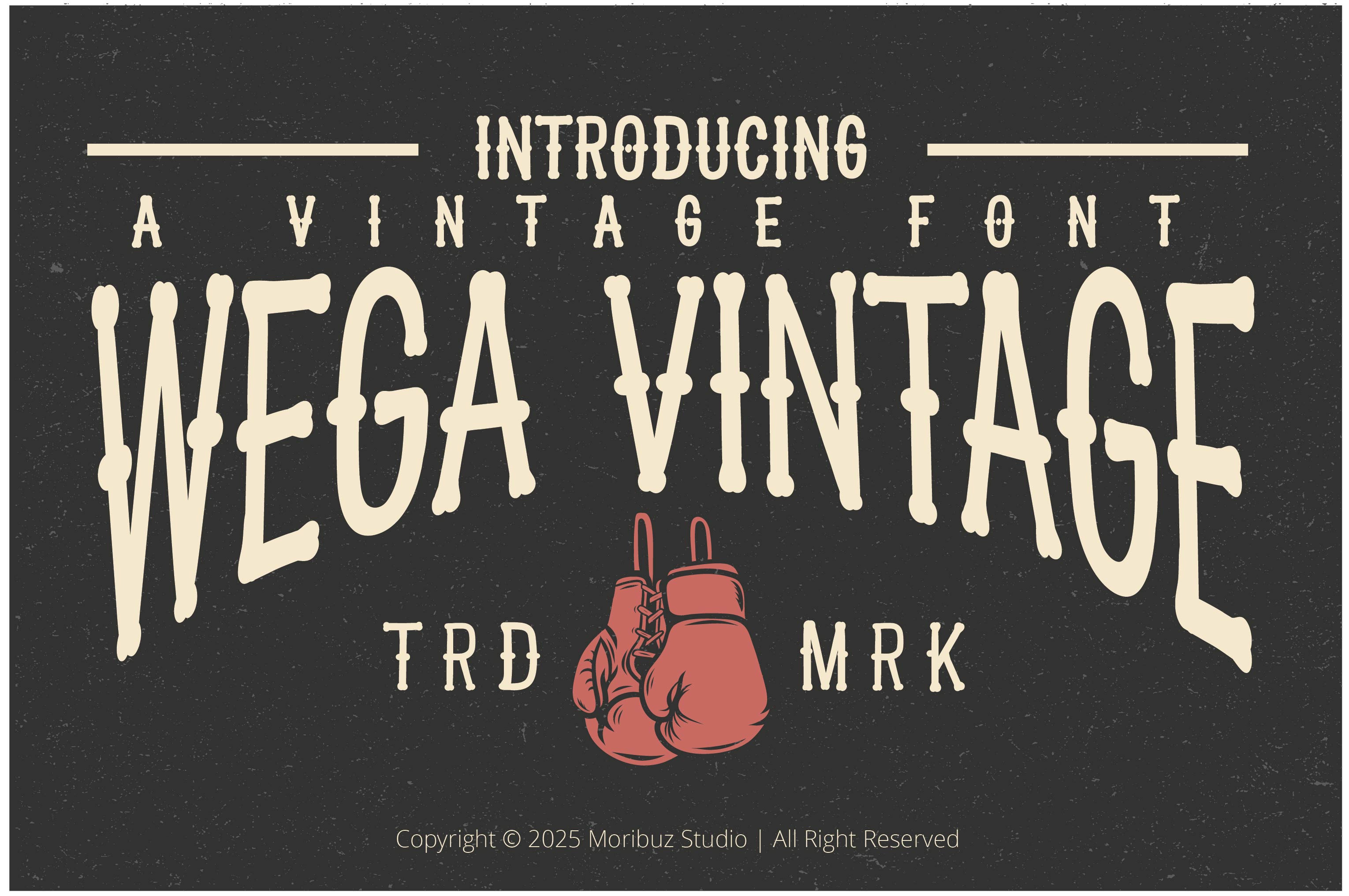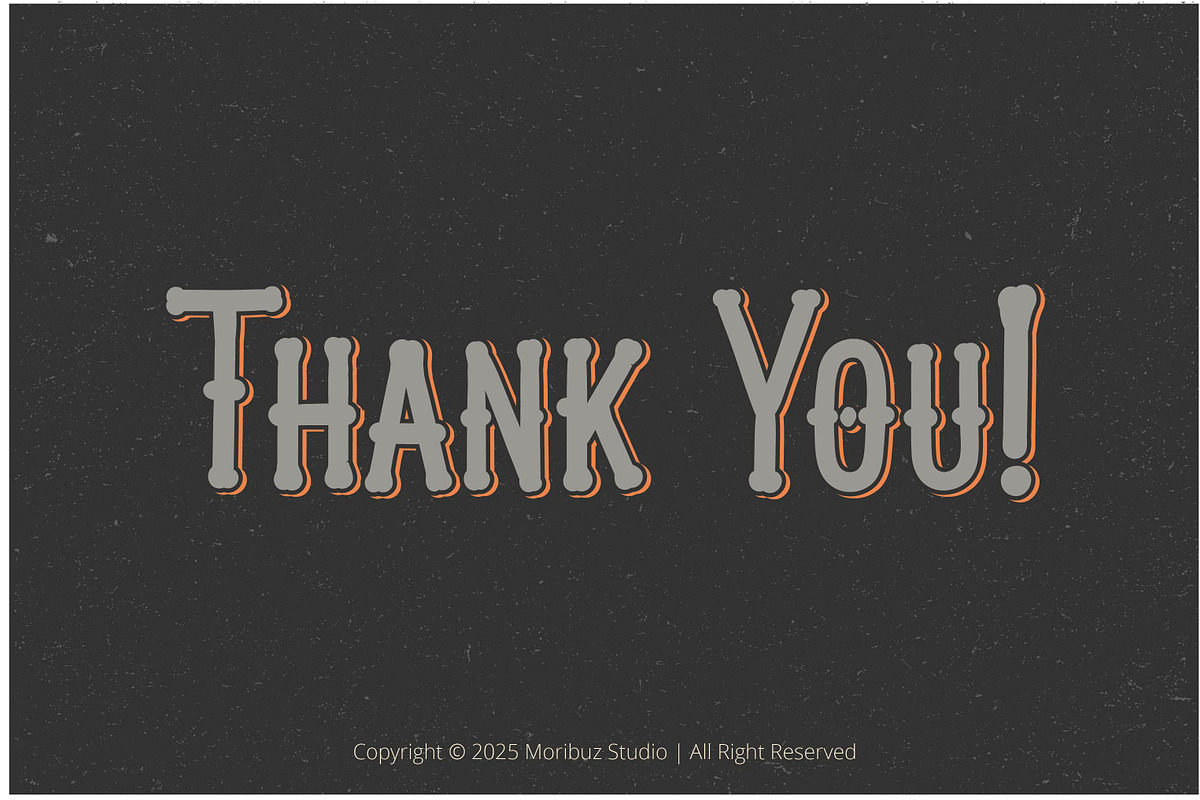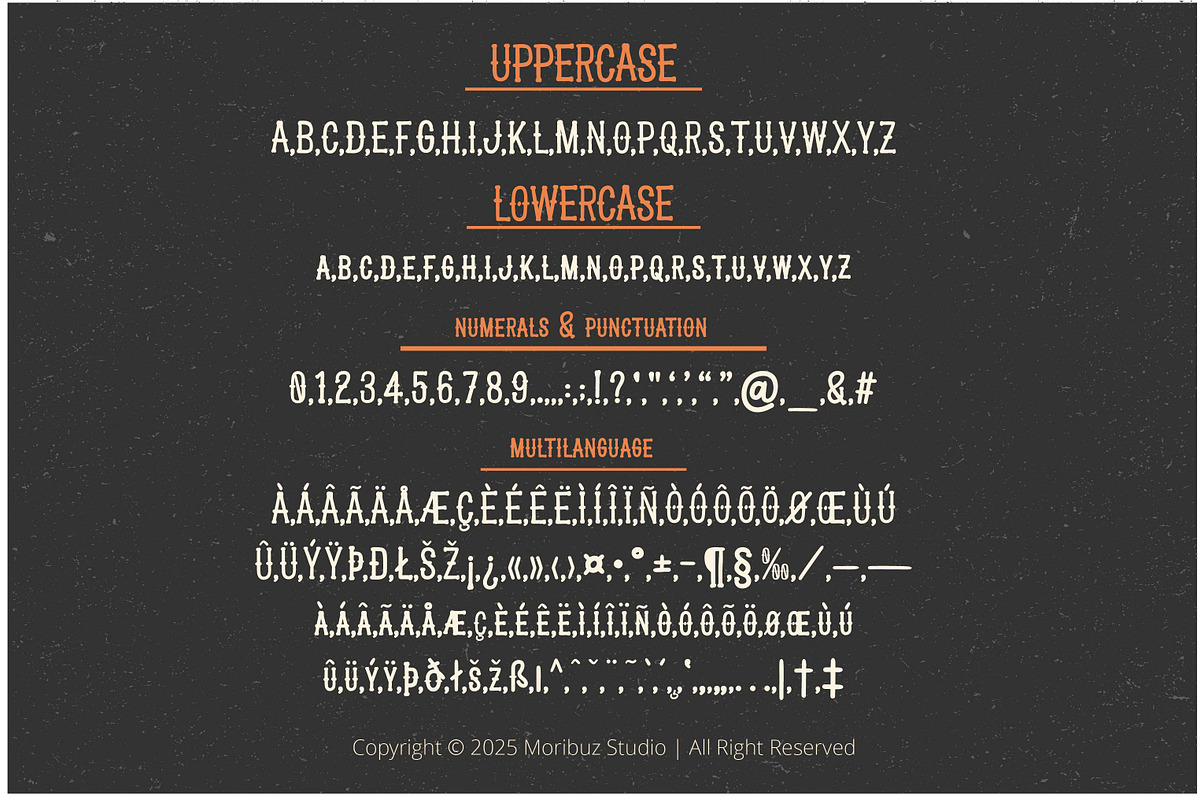
Wega | Vintage Font
Introducing a vintage font, WEGA! This classic font is perfect for all your Logo and quirky creations! Use it to create pair it with illustrations, create minimal designs, label designs, and more!
Multilanguage Supports 60+ Latin-based languages